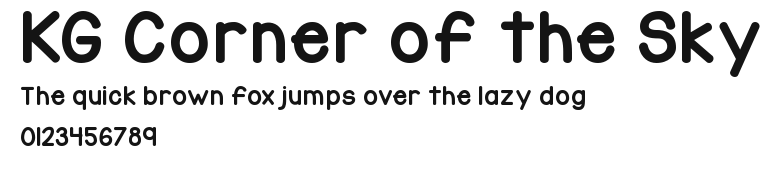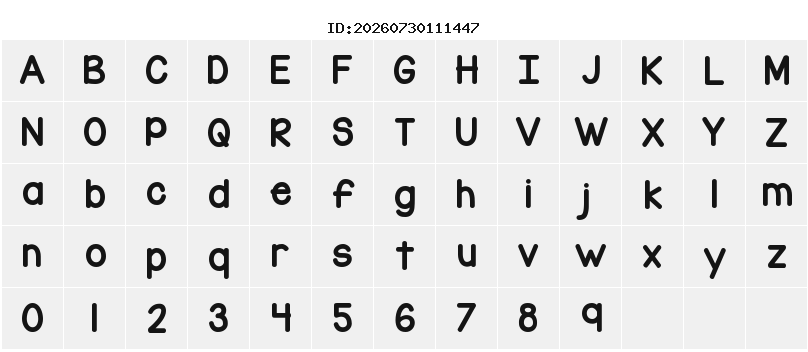
KG Corner of the Sky Preview
• Font Name: KG Corner of the Sky
• Font ID: KimberlyGeswein: KG Corner of the Sky: 2014
• Full Font Name: KG Corner of the Sky
• Designer: Kimberly Geswein
• Manufacturer: Kimberly Geswein
About KG Corner of the Sky.ttf
KG Corner of the Sky.ttf is a modern, elegant sans-serif font designed for ultimate readability and visual harmony. Perfect for branding, headlines, web design, and print materials.